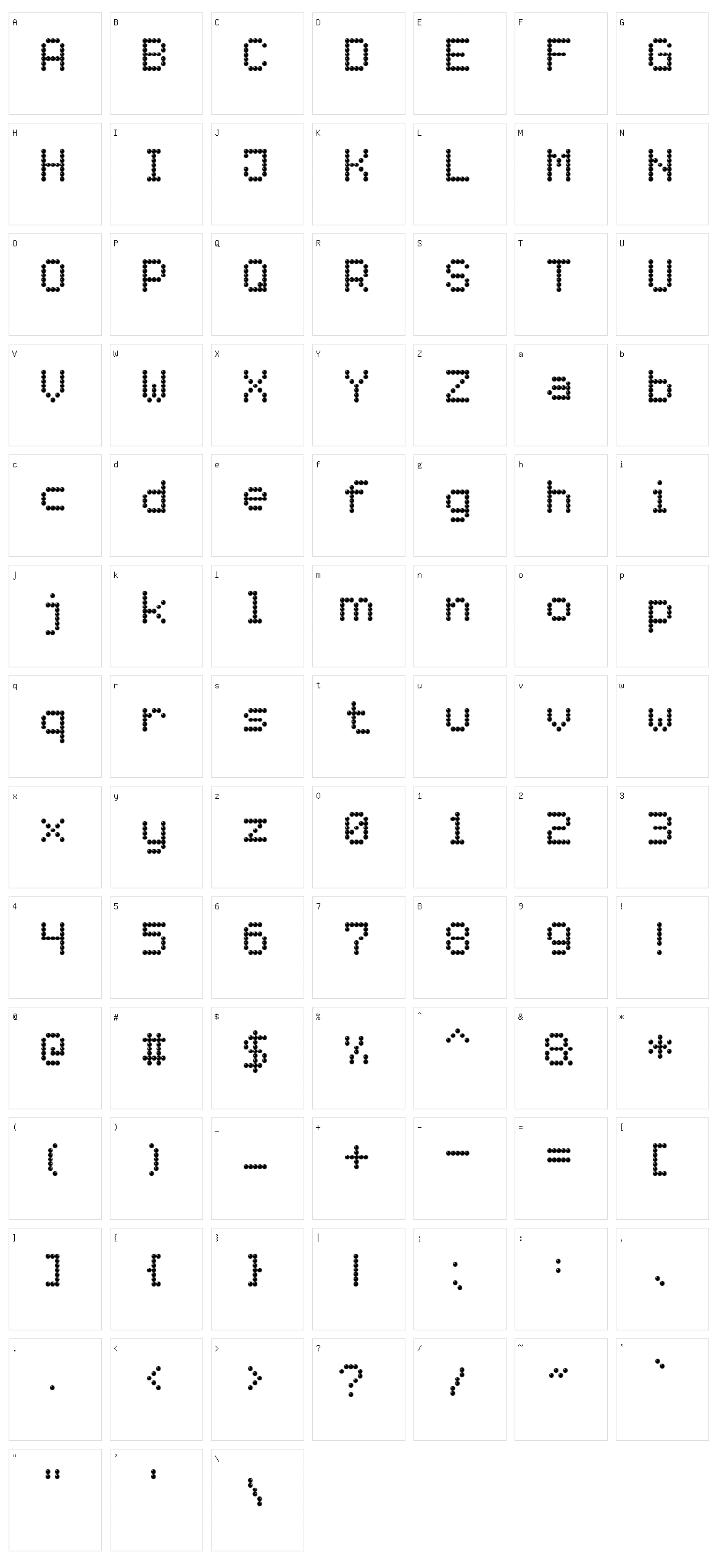
Light LED Board-7
This is original font like a LED (Light Emitting Diode) display. Latin 1, Latin 2 and Cyrillic code pages are supported.
* Added symbols for 1252 Latin 1 code page.
Light LED Board-7 Character Set